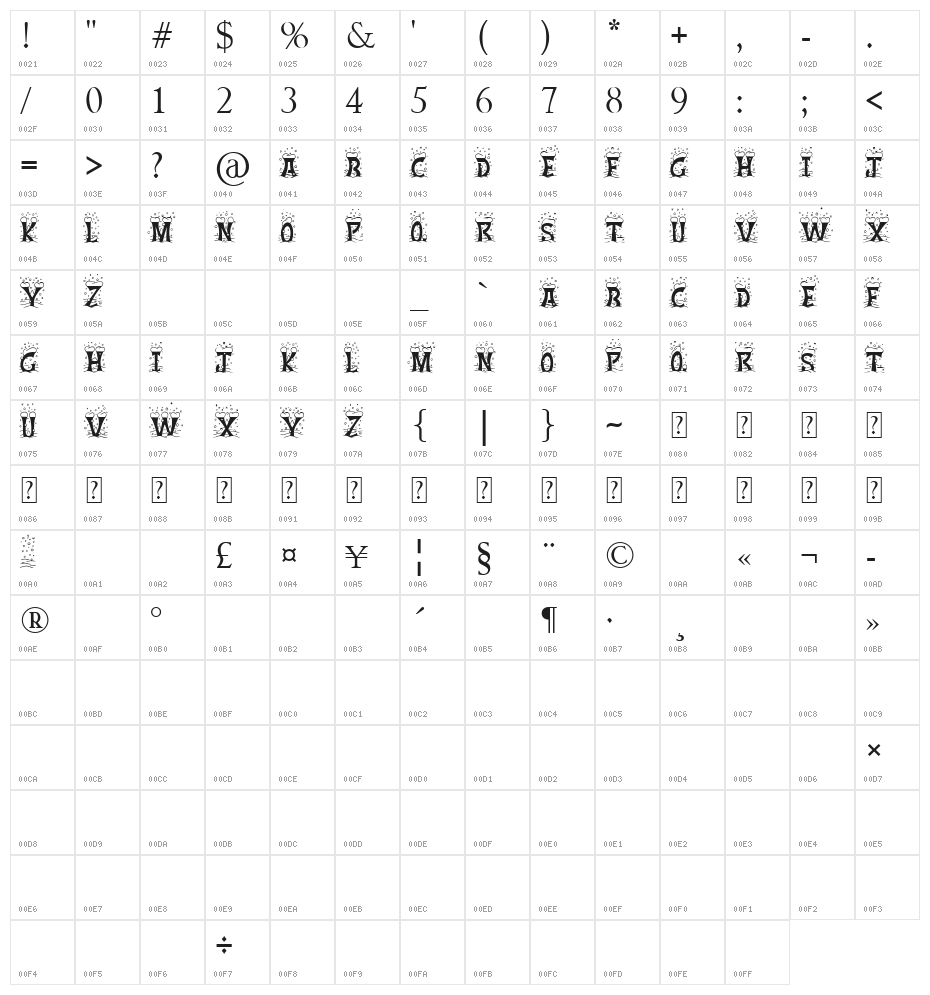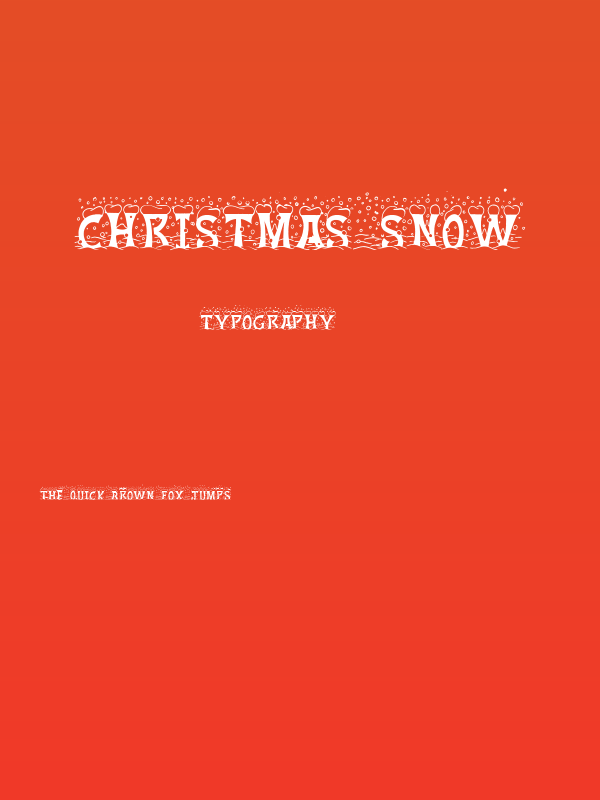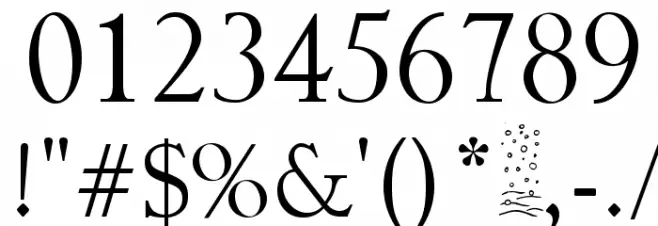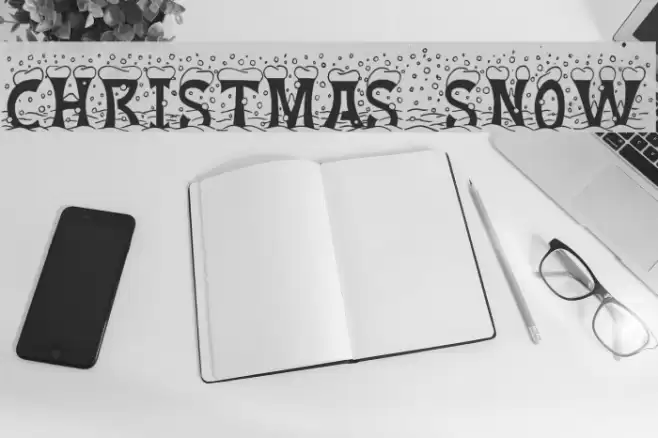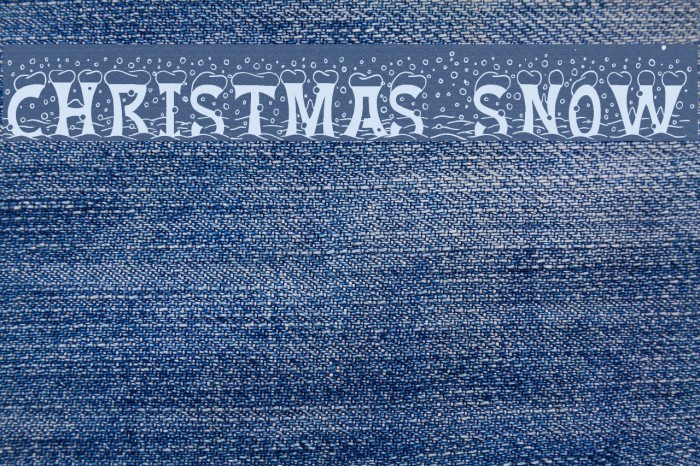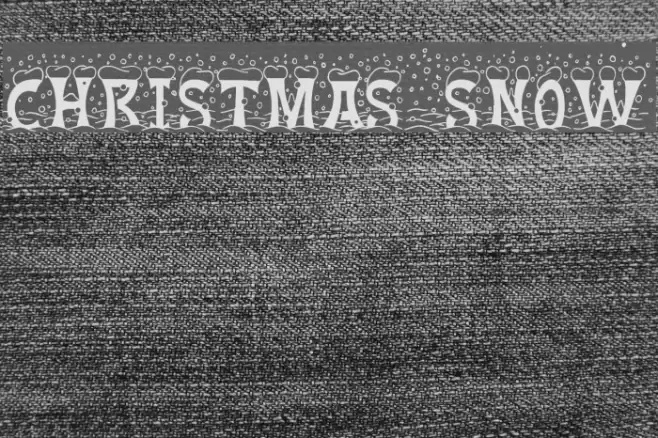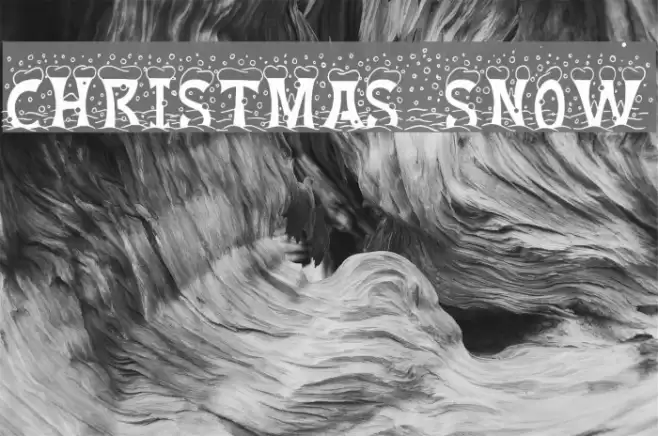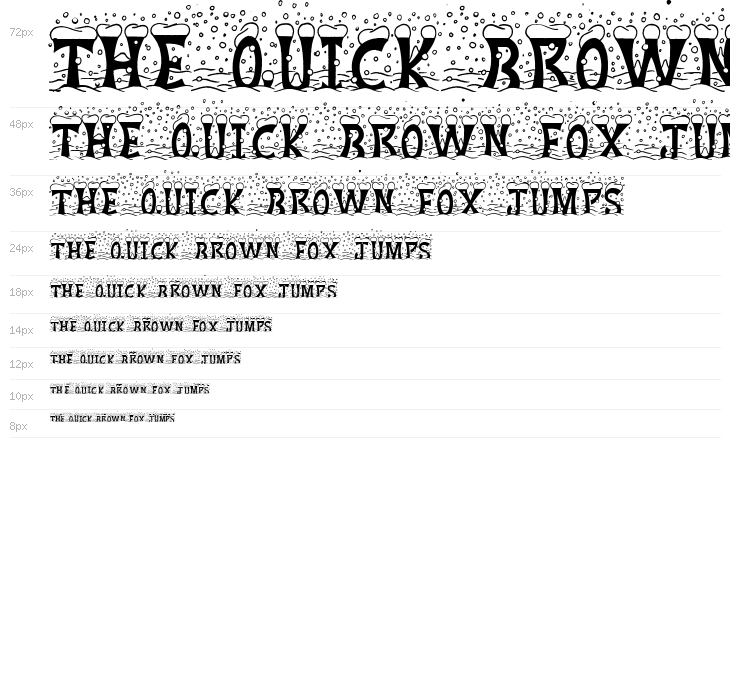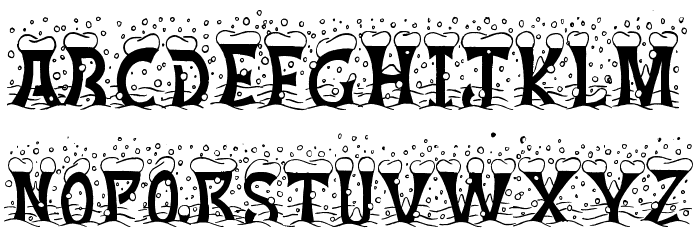
Christmas Snow Font
| Caz de utilizare | Headlines, Logos, Holiday-themed designs |
| Proiecte propuse | Ideal for Christmas cards, holiday banners, festive invitations, and seasonal advertisements. |